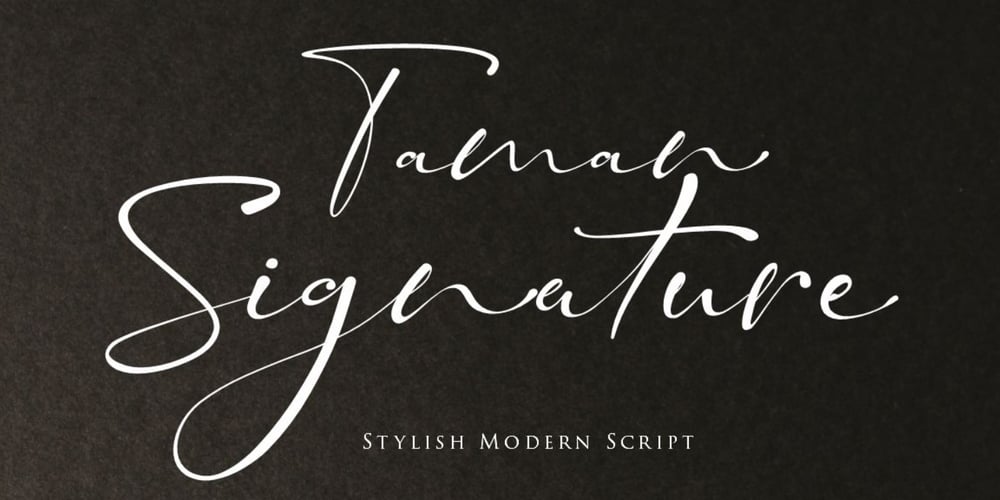
Taman Siganture Font Family was designed by Gumilar Pratama Adiatna and published by Gilar Studio. Taman Siganture contains 1 styles and family package options. Introducing,Taman SignatureThis Taman Signature script typeface includes many different alternates for each lowercase letter. It’s extremely fun to use as each word can be transformed to your liking.Taman Signature Inspired by contemporary fashion and streetwear and combination with Hand Lettering style. I’m made with personality touch every single curve. I hope this can make inspire you from your work. and a very bouncy baseline It has a perfectly paired complimentary marker font.Ideal for logos, handwritten quotes, product packaging, header, poster, merchandise, social media & greeting cards.Features Basic Latin A-Z and a-z Numbers Symbols Stylistic Set Ligature PUA Encode Multilanguage Supportc Check my other fonts here : gilarstudio.comThanks and happy designing ๐